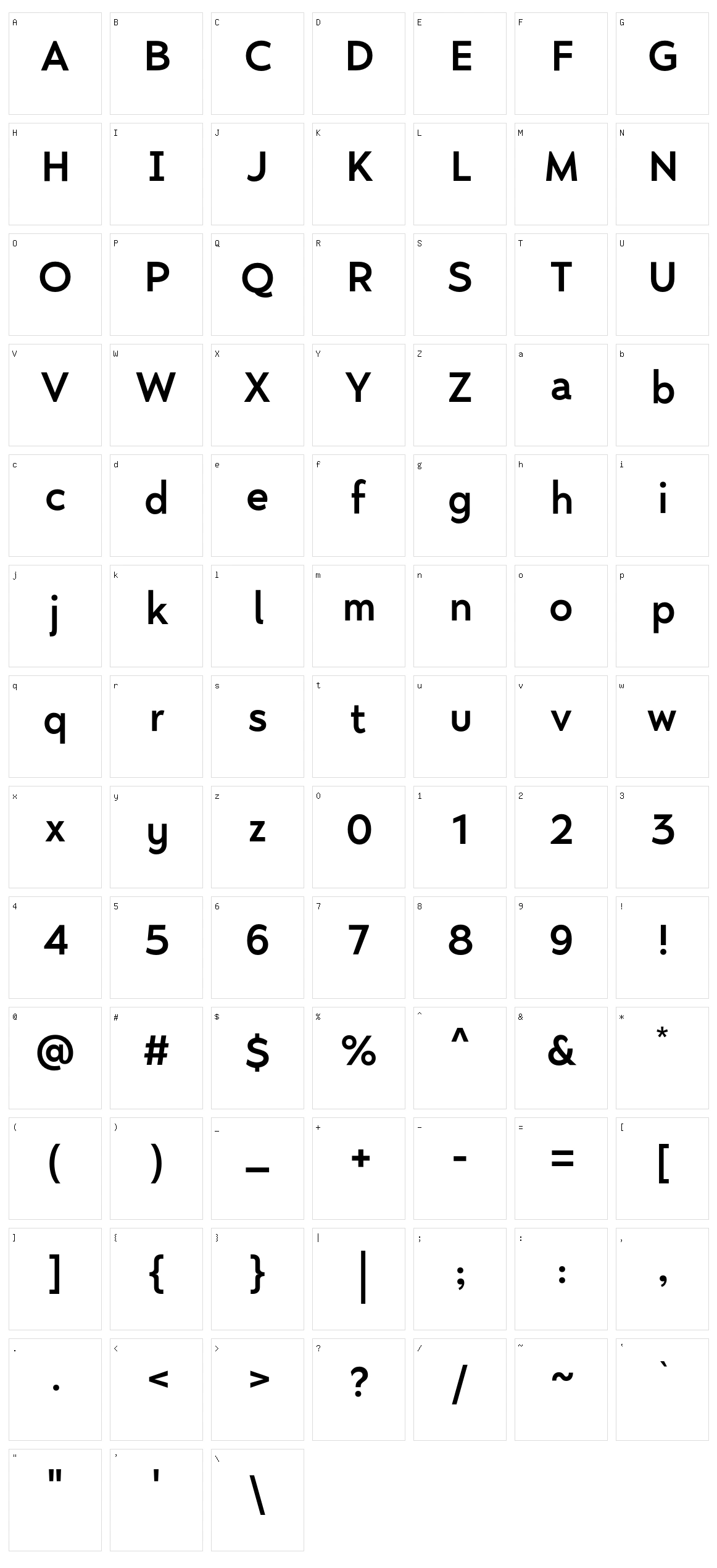
---------- ABOUT NYATA⢠----------
Nyata⢠â Clearly Visible, No Matter What.
I love London for its finest visual branding, especially its Johnston typeface spreading all over the city. It inspired me to create this new font family: Nyataâ¢.
Nyata means clearly visible in Indonesian. The typeface is designed to be clean, unique, and legible. It is a great combination for any display requiring high legibility, such as cityâs way finder.
Long ascenders help some characters more obvious. You will never confuse wether it is an h or an n. Moreover, I tried to create all the letters are distinguishable. Of course, no time for people to doubt between Uppercase âIâ and lowercase âlâ when seeing a way finder. Last but not least, it is equipped with tons of OpenType features such as slashed zero to help the words more obvious, or stylistic sets if you donât fancy the serifed uppercase I.
Nyata⢠is also delivered in Variable Font format. Enjoy all the styles and everything in between in one variable font only sized less than 150kb.